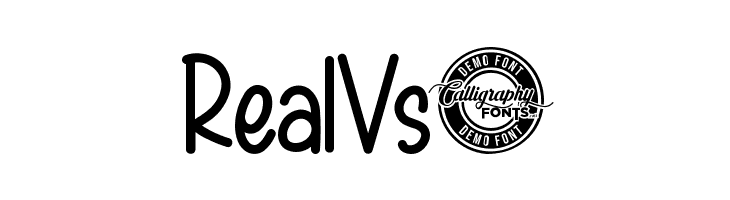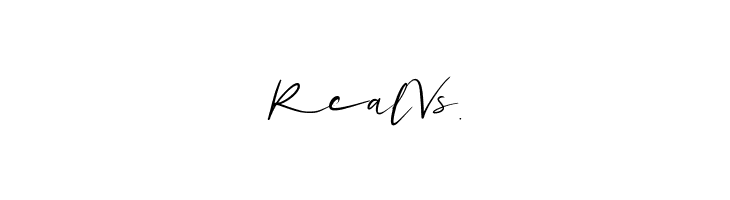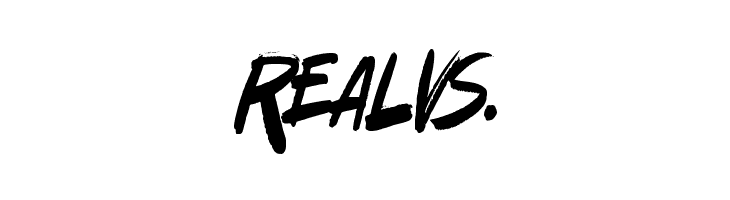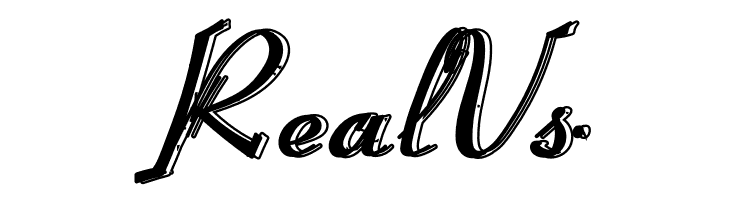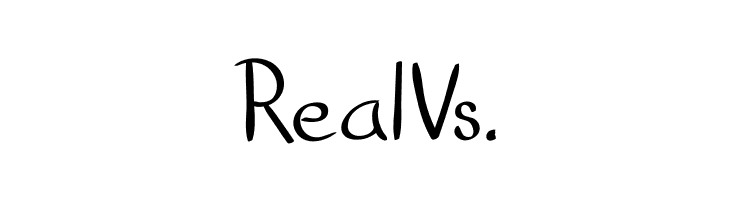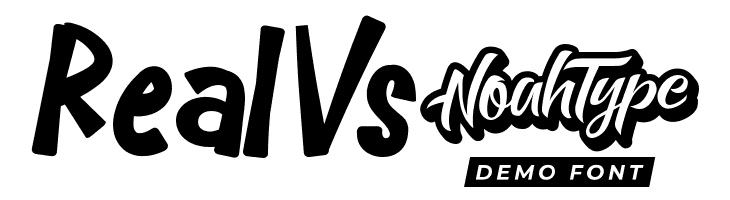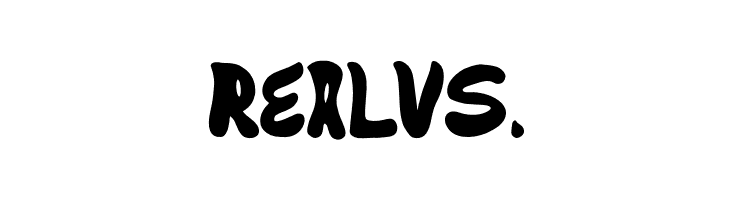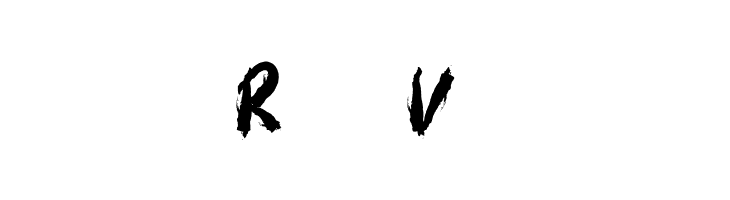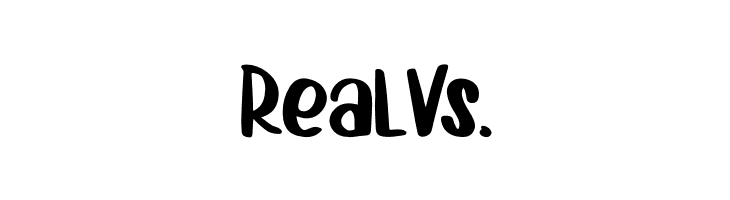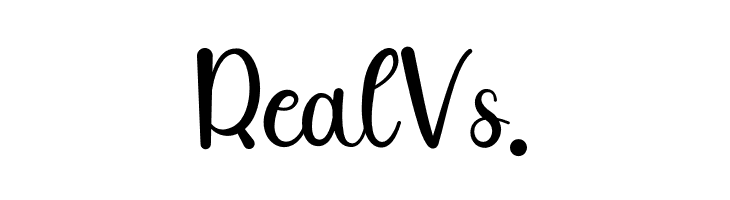
• Good Happiness
A lively, handwritten font with fluid strokes and a casual, playful style.
• Good Idea
A lively, expressive handwritten font with fluid strokes and playful style.
• Good Job
A bold, dynamic script font with high contrast and flowing letterforms.
• Good Kids Demo
A playful, hand-drawn font with bold, irregular strokes and a dynamic slant.
• Good Looking Karma
A bold, dynamic brush script font with high contrast and expressive strokes.
• Good Looking Karma
A bold, brush-style font with dynamic, hand-painted strokes.
• GOOD LUCK !
A playful, handwritten font with tall, narrow letters and consistent stroke width.
• Good Memories Demo
A playful, rounded font with smooth curves and a friendly appearance.
• Good Memories Demo Script
A playful, whimsical script font with a handwritten style.
• Good Mood
A playful, narrow font with rounded characters and even spacing.
• Good Morning
A bold, playful font with decorative, exaggerated serifs.
• Good Morning Death
A bold, dripping horror-themed decorative font.
• Good Mother
A playful, handwritten-style font with fluid and dynamic strokes.
• Good People
A playful, whimsical script font with a hand-drawn appearance.
• Good Smells Demo
A delicate, flowing script font with elegant, continuous strokes.
• Good Stories